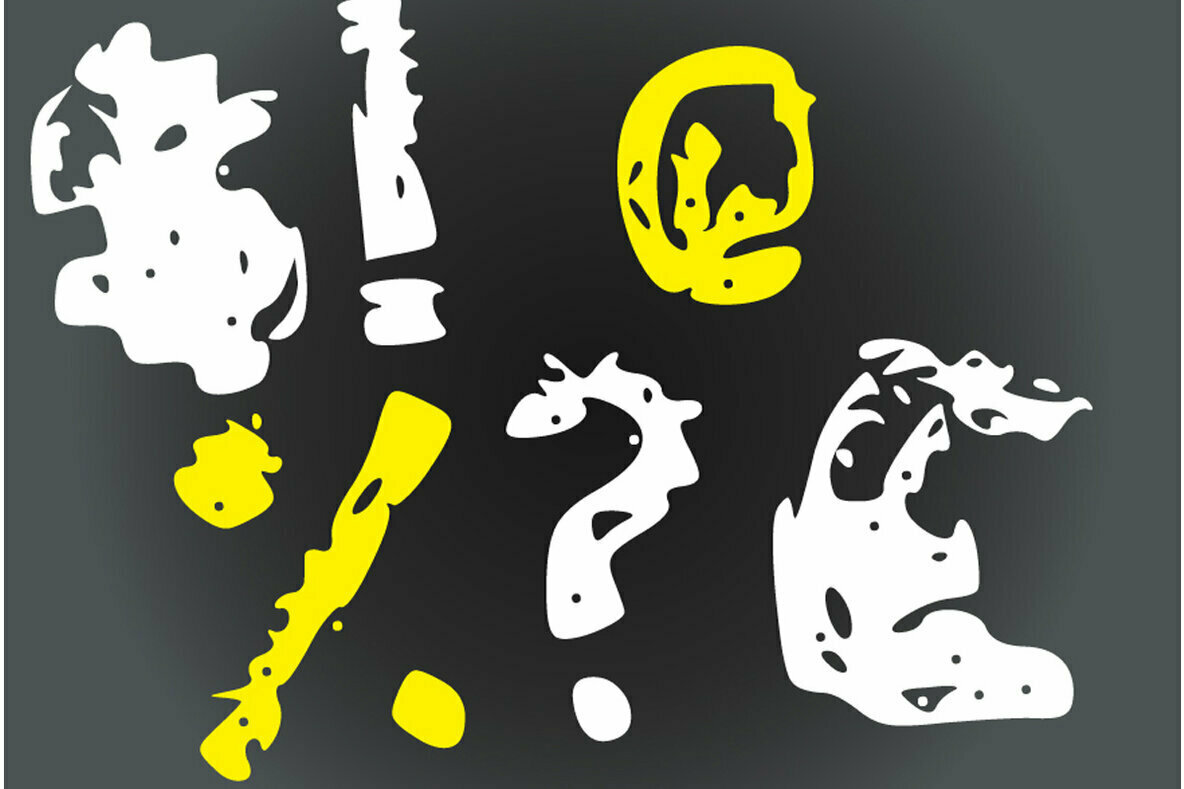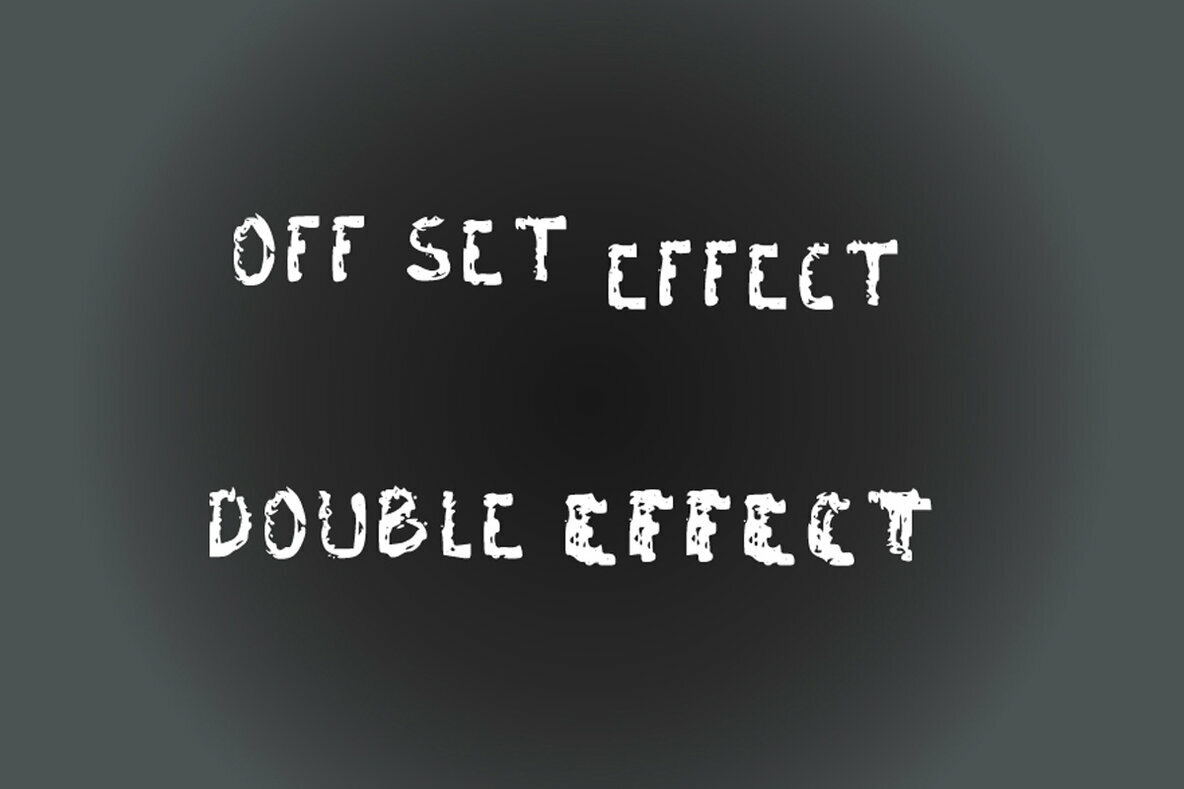
Dead Print Font
Dead Print embodies a vintage print room look with a worn out rusted type effect. This enchanting display font will turn any creative idea into a true standout.